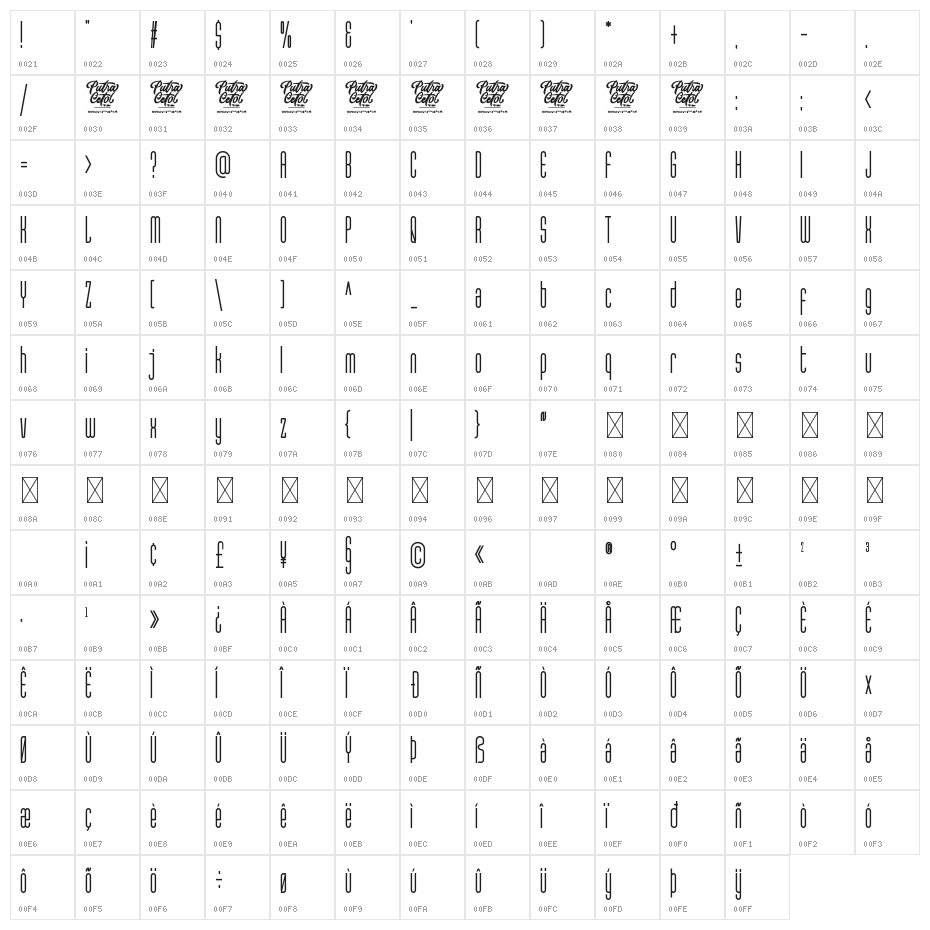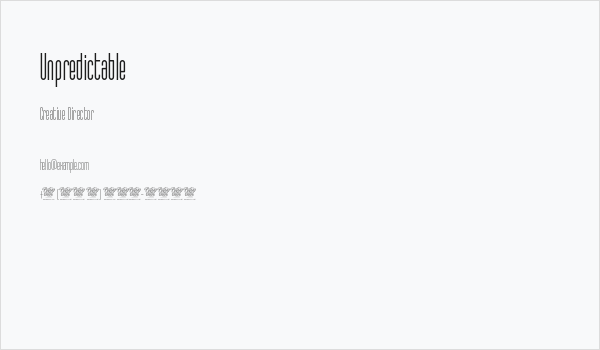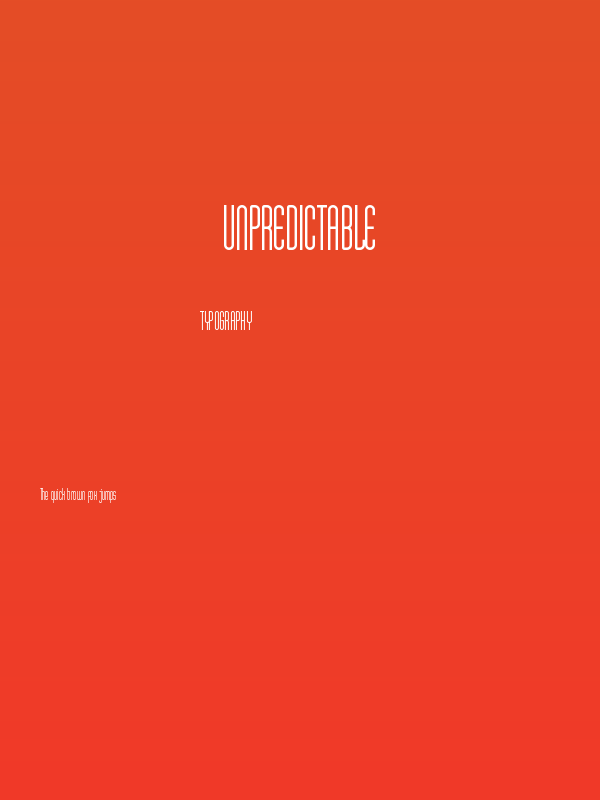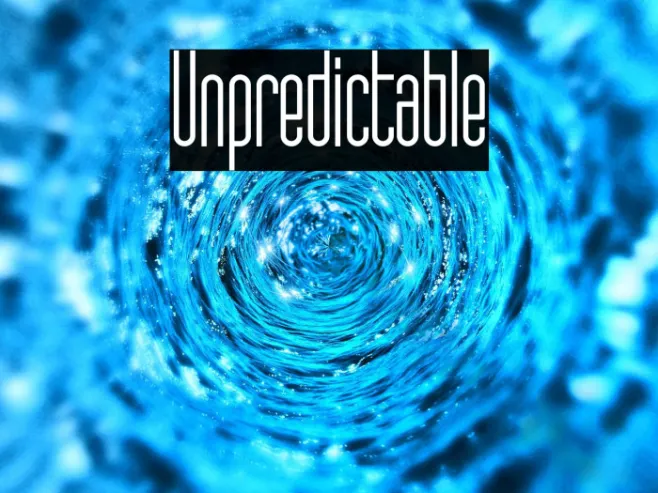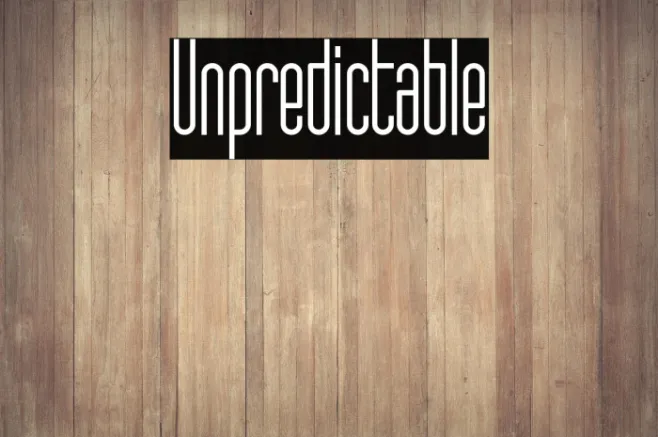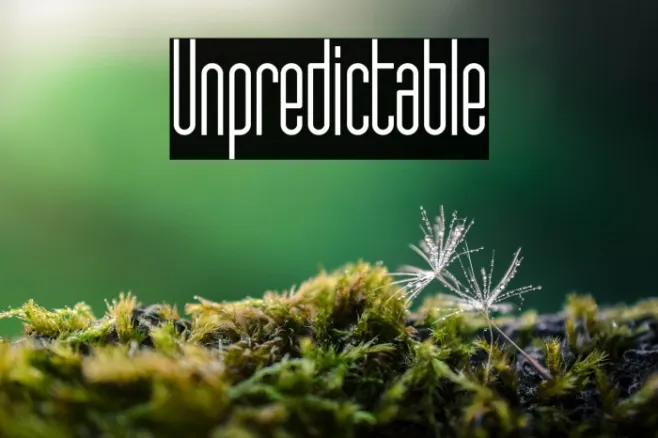
Unpredictable Font
Unpredictable Description
This font features a tall and narrow design with elongated characters that give it a sleek and modern appearance. The uppercase and lowercase letters maintain a consistent height, contributing to a uniform look. The strokes are thin and evenly spaced, creating a clean and minimalist aesthetic. The font includes a full set of uppercase and lowercase letters, numbers, and a selection of special characters. Its geometric structure and vertical emphasis make it suitable for contemporary design projects.
| Proposed Projects | Ideal for modern branding, fashion magazines, posters, and minimalist design projects. |